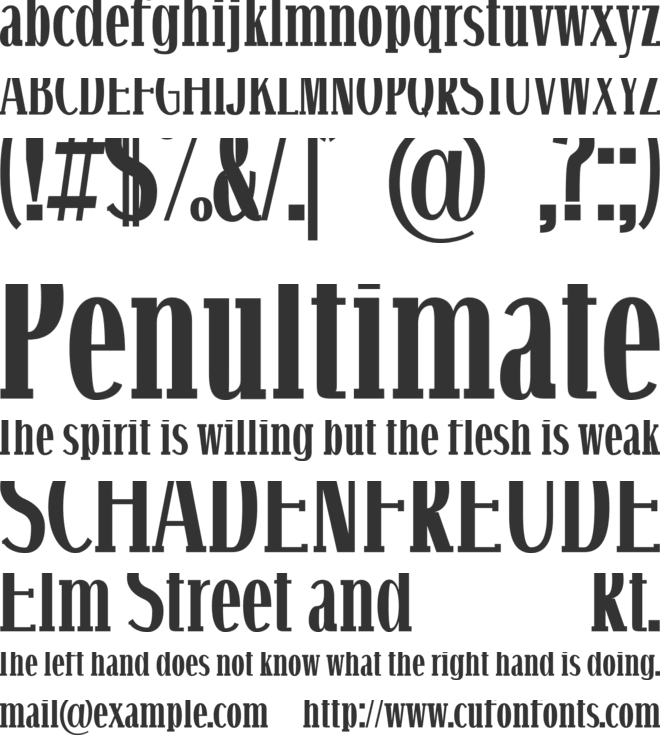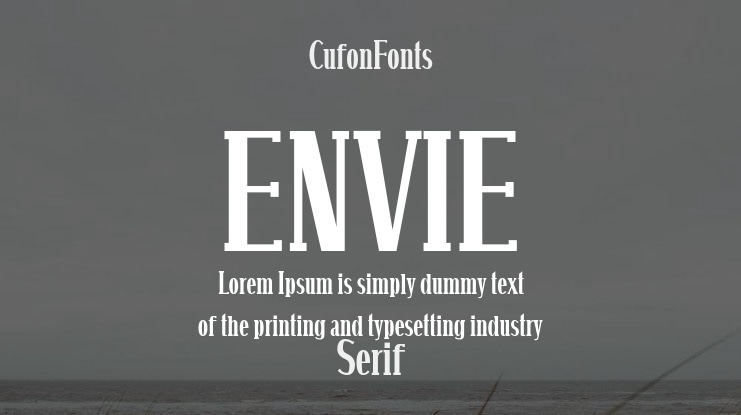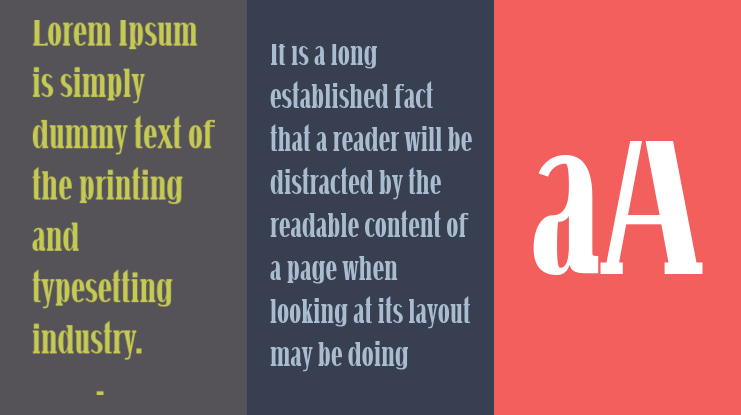
ENVIE Font Family
Envie is a minimalist slab serif with multilingual support—perfect for luxury branding, editorial layouts, and high-impact packaging.